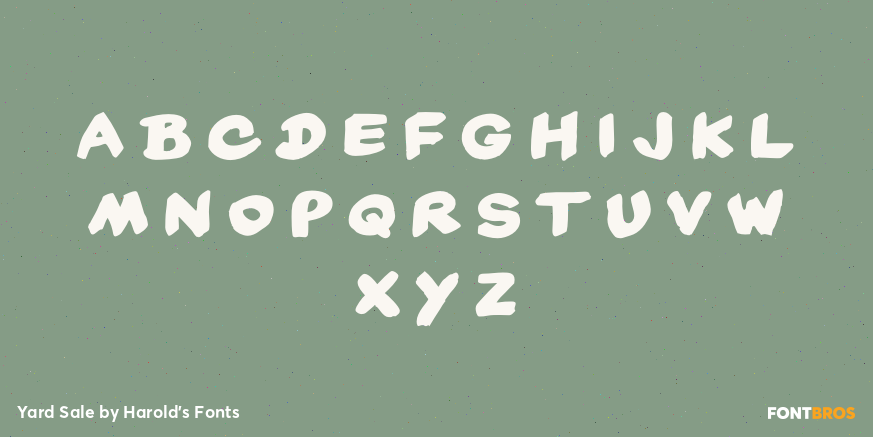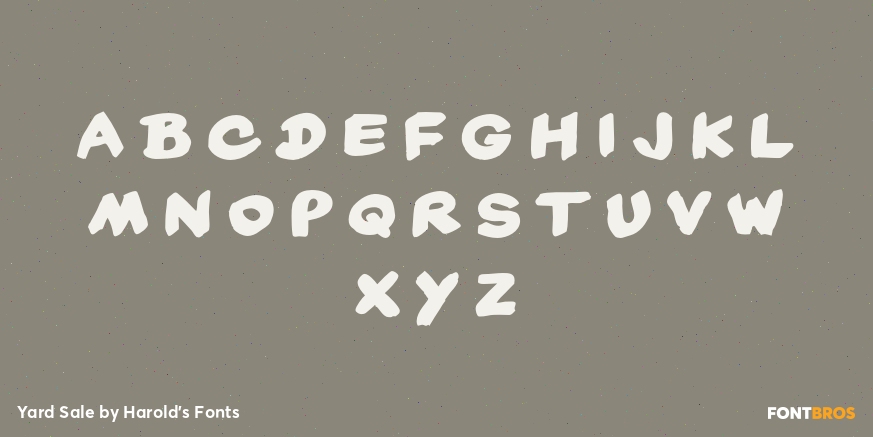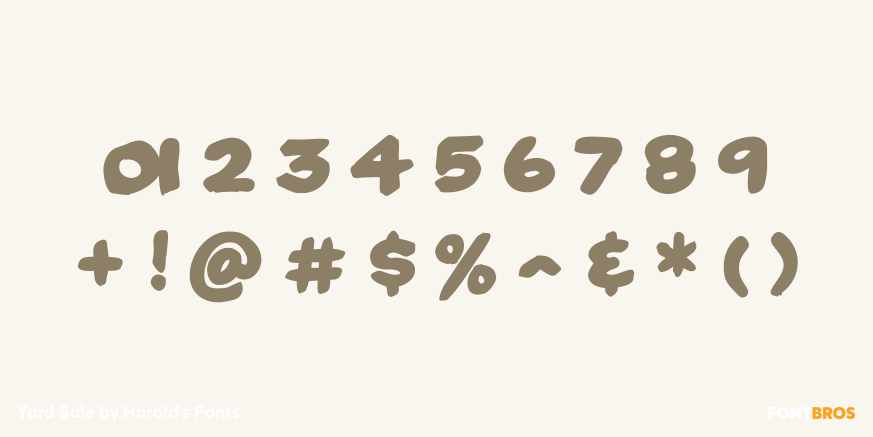
Yard Sale
Font Family by Harold's Fonts
YARD SALE was inspired directly by the obsessive hand-lettered signs of my friend Dan’s anonymous neighbor.
You can almost smell the Magic Marker! Very closely spaced like the original samples.